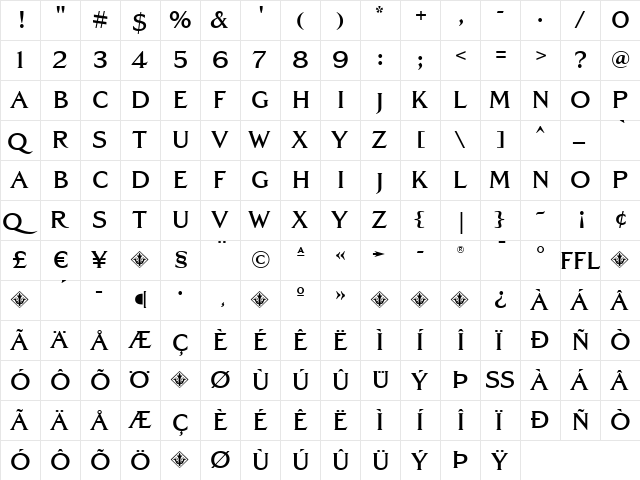
GrandCentral-Bold Regular
| Designer | Tobias Frere-Jones |
Design Context for GrandCentral-Bold Typeface
GrandCentral-Bold takes a measured approach to typography — its balanced proportions and neutral character make it a reliable workhorse for both digital and print work. The heavy weight commands attention and anchors typographic hierarchies.